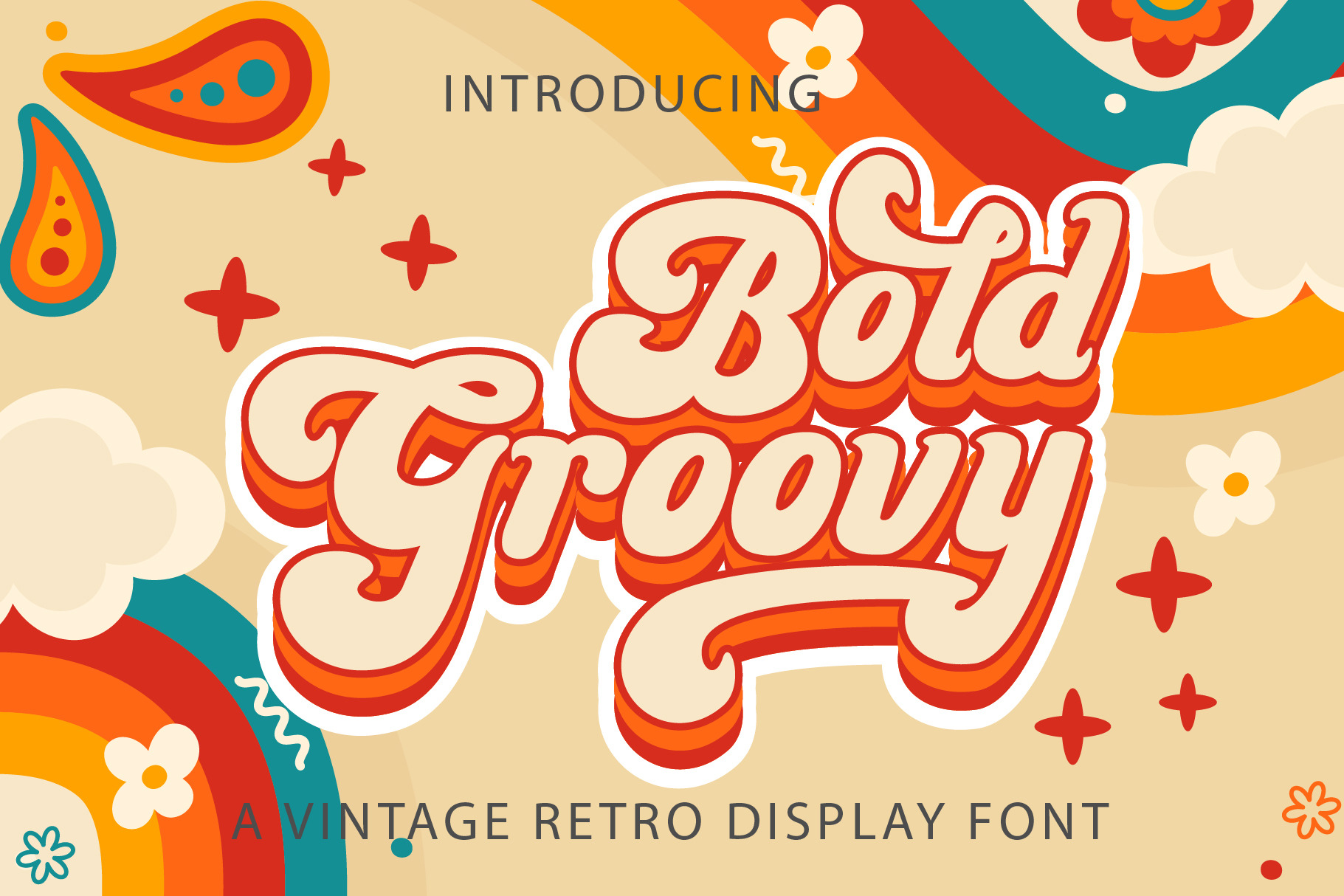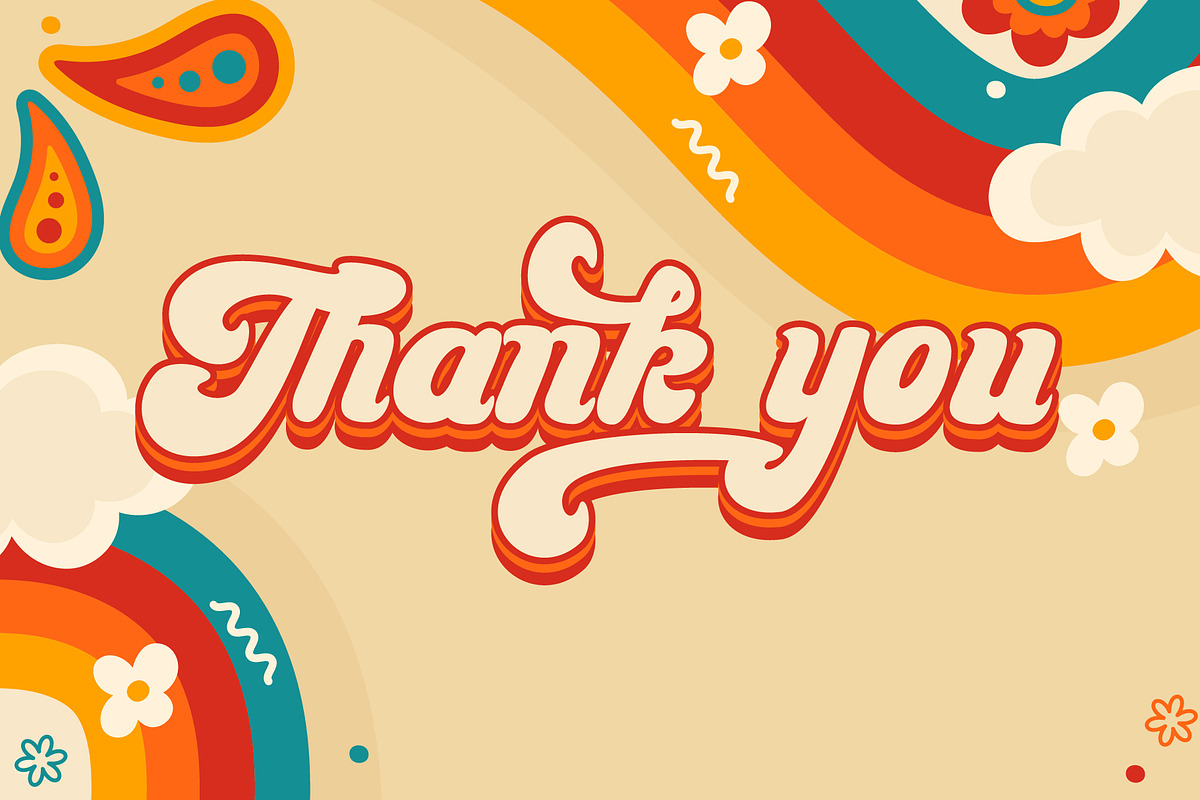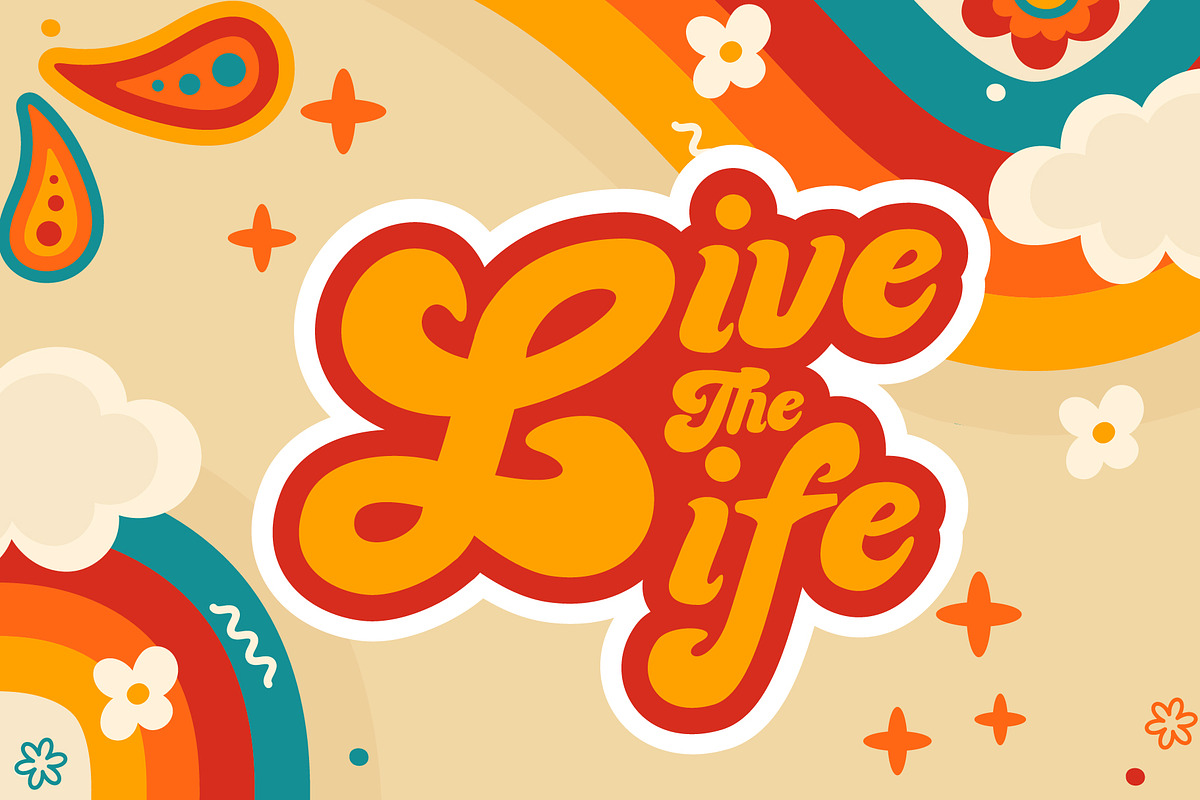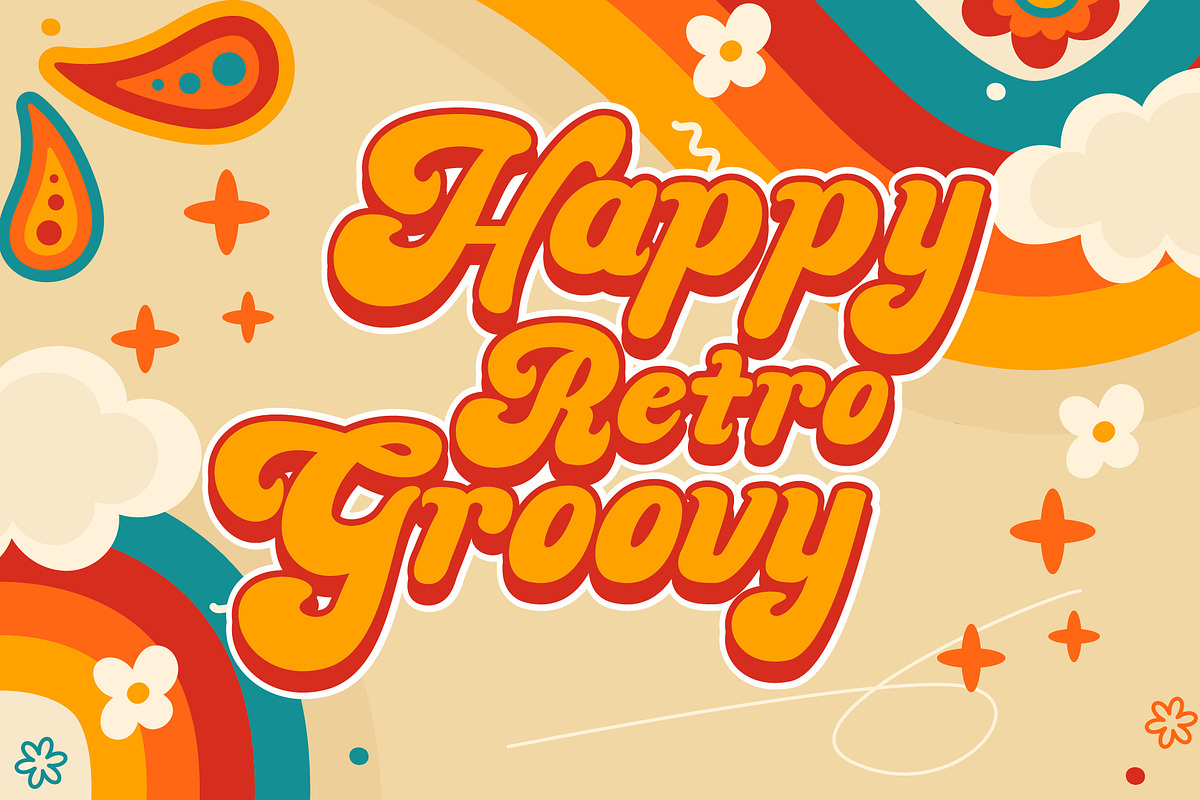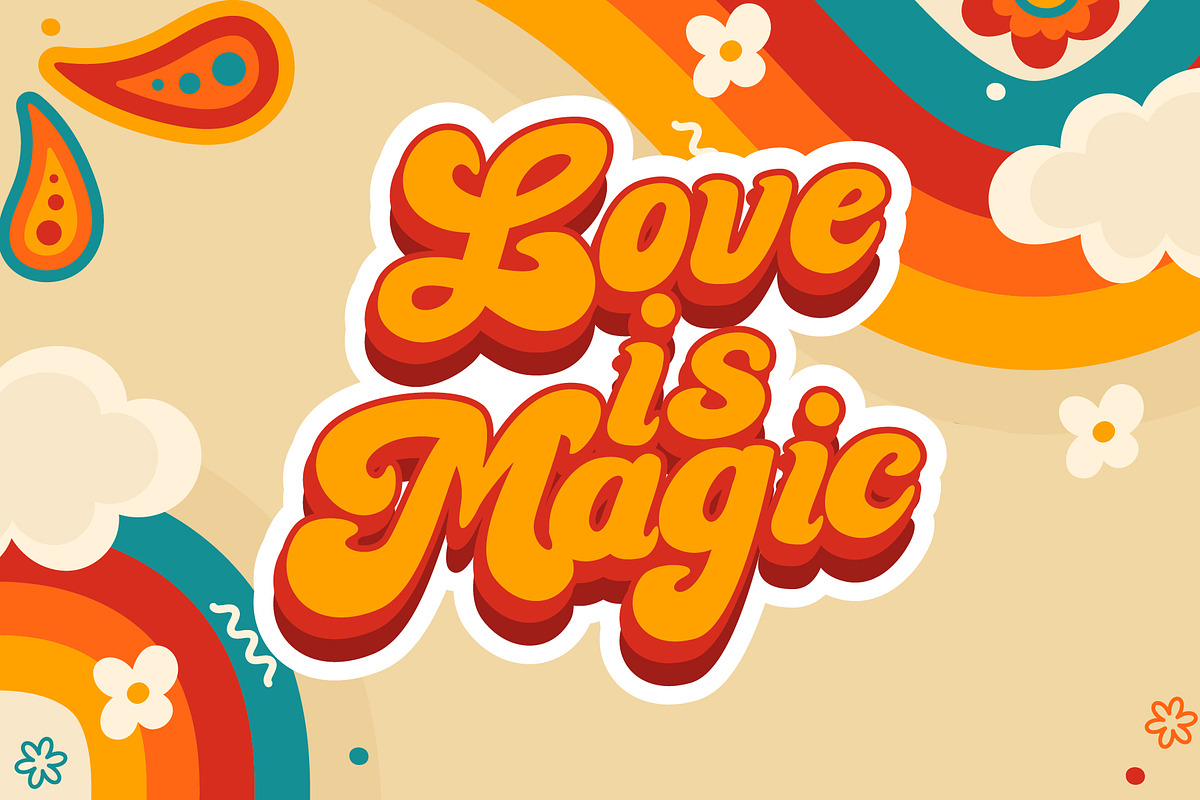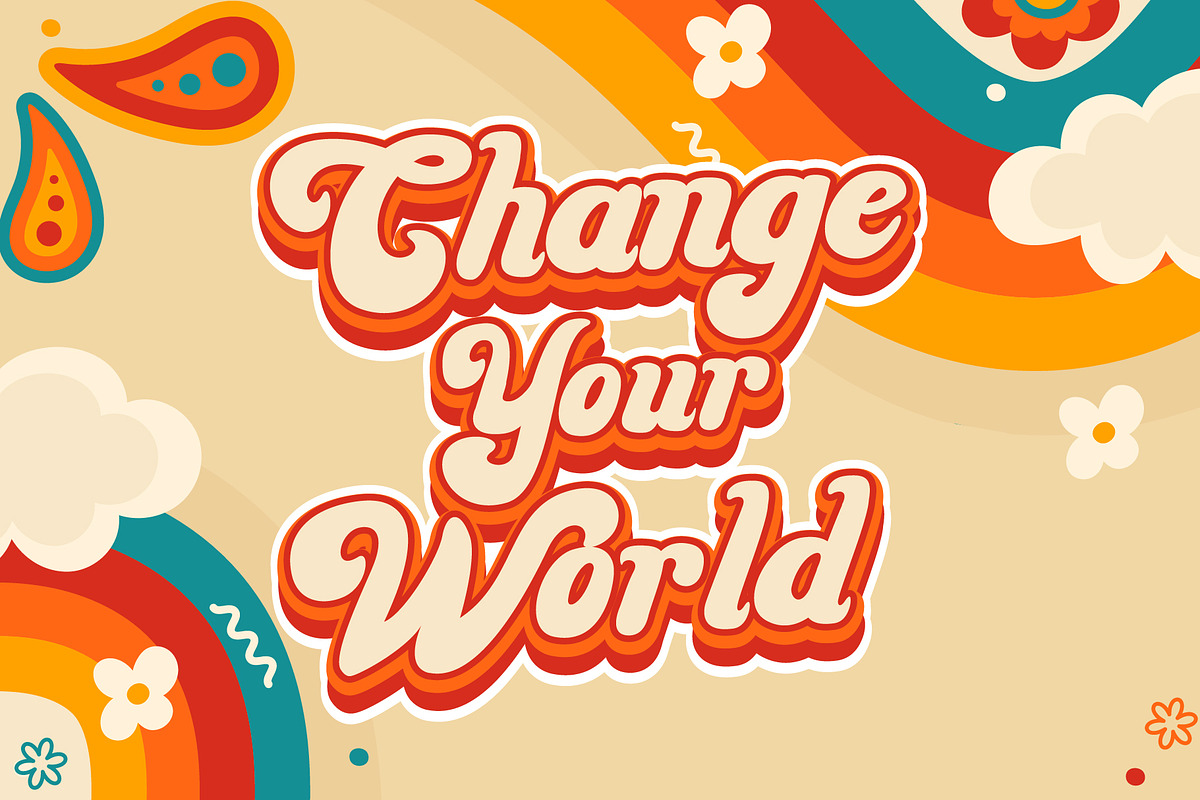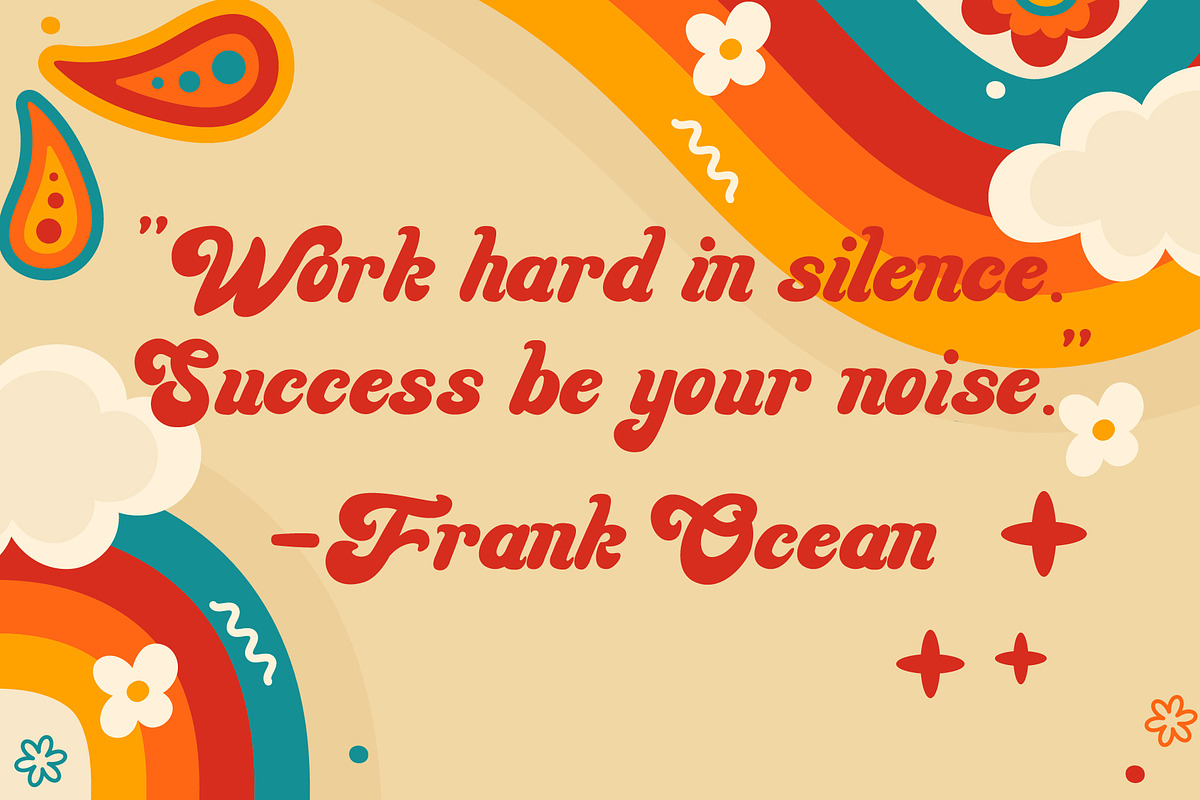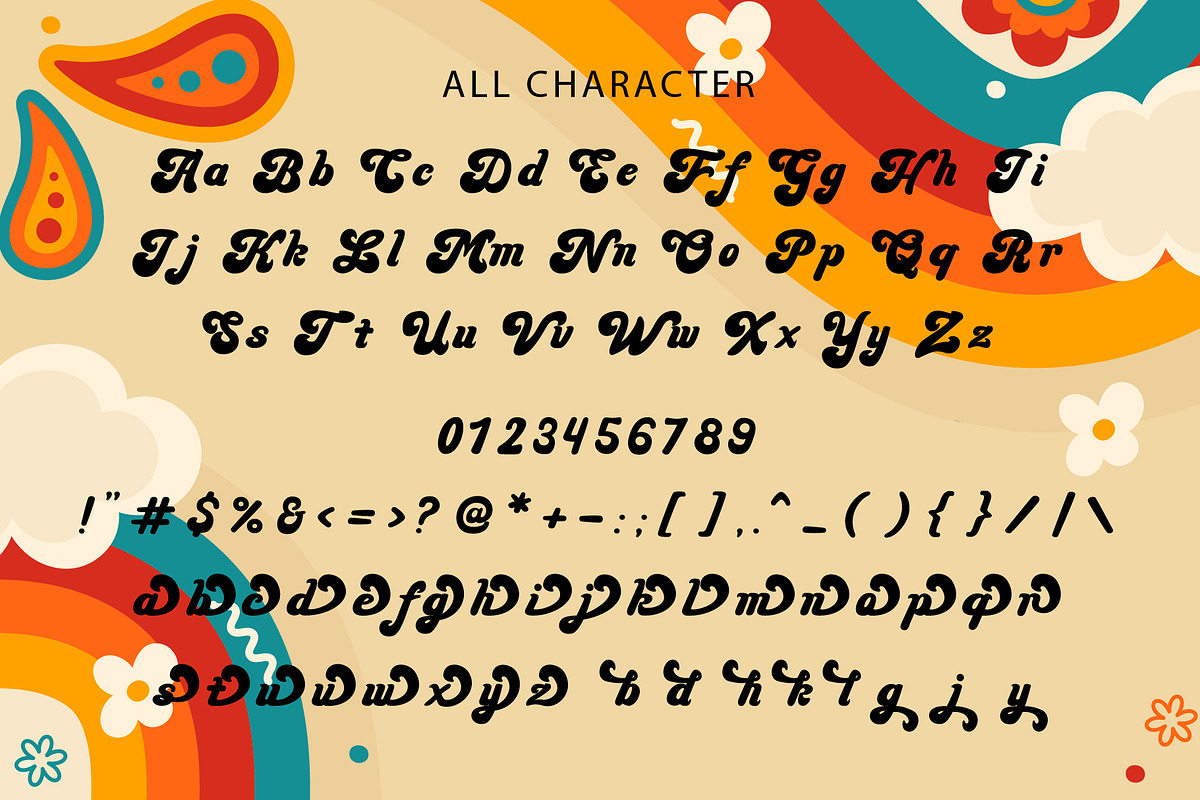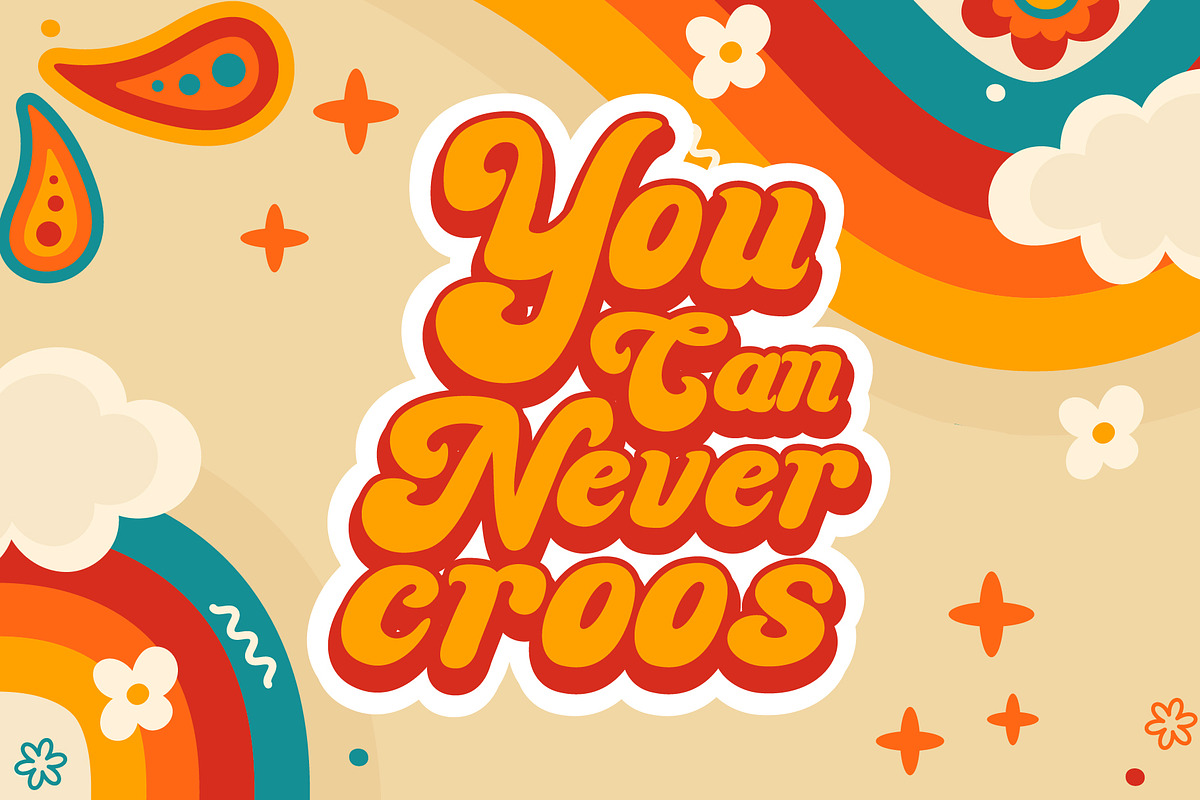
Bold Groovy - Groovy Font
Bold Groovy is a cool, vintage-style handwritten font. Use it to add that special retro touch to any design idea! It can be used for logos, branding, invitations, stationery, wedding designs, social media posts, and much more! This font is PUA encoded which means you can access all glyphs and swashes easily!